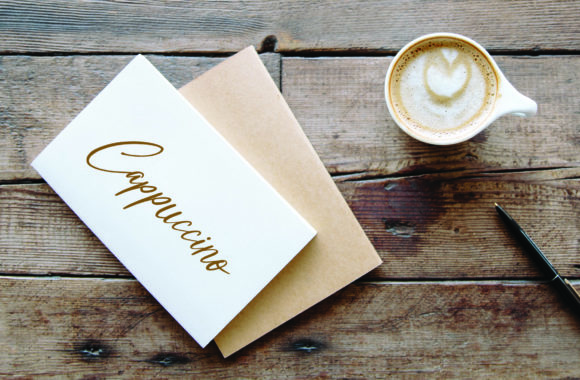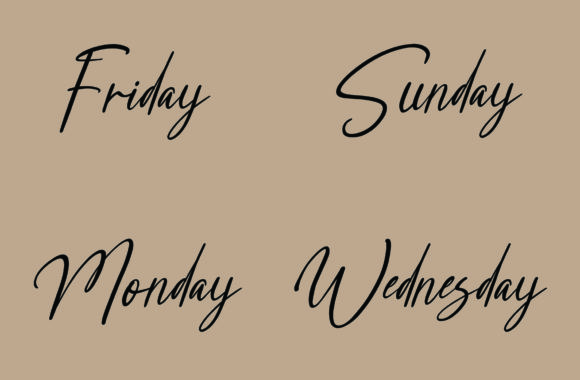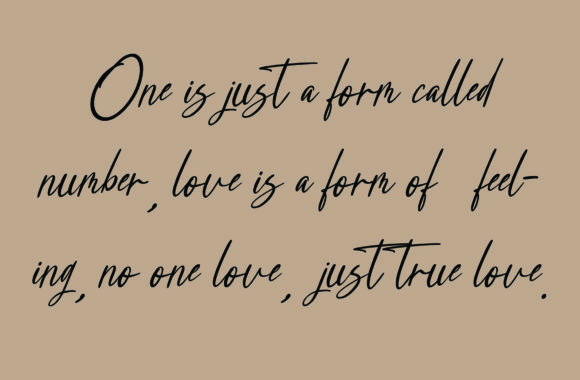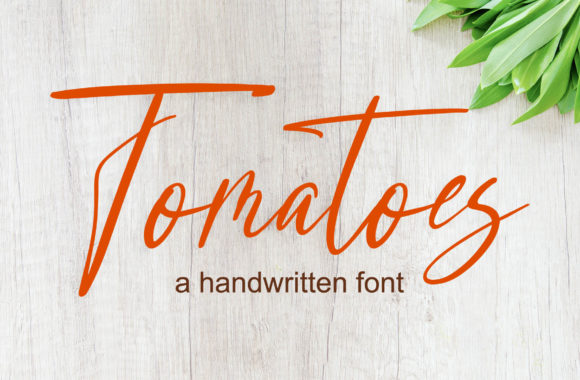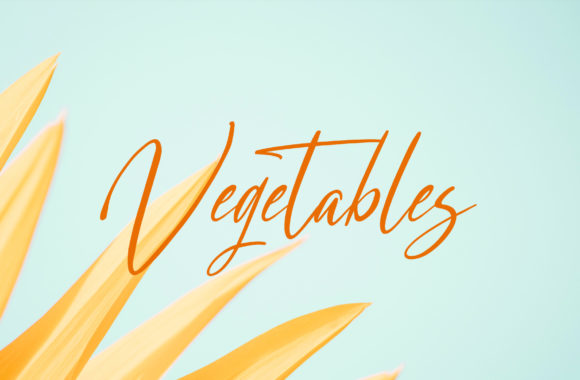
Tomatoes
About Tomatoes Font
Tomatoes is a beautiful, flowing and fashionable script font. It has a classy, elegant and modern look that can be used for logos, branding, invitations, stationery, wedding designs, social media posts, and much more!